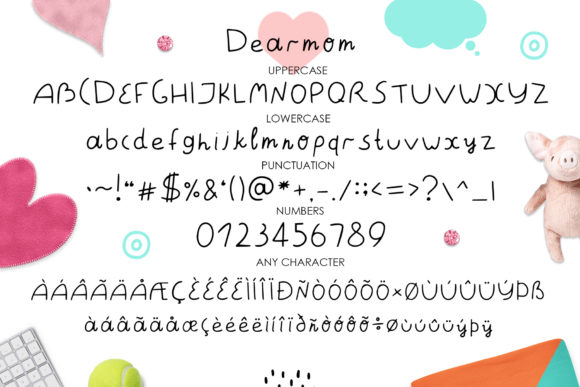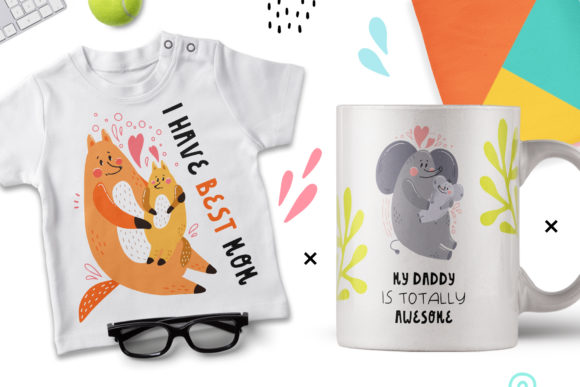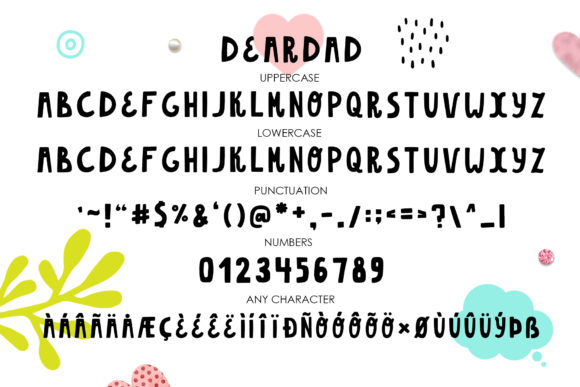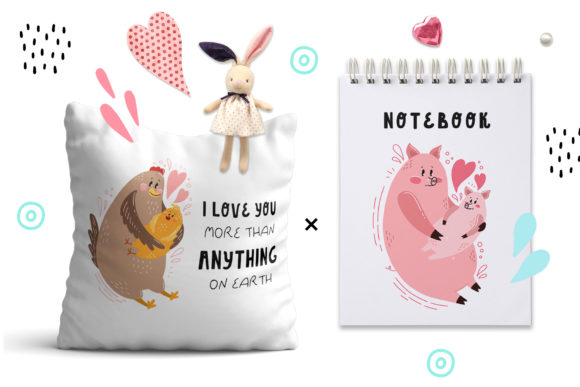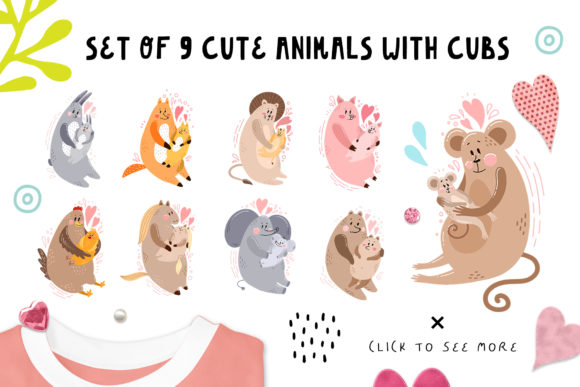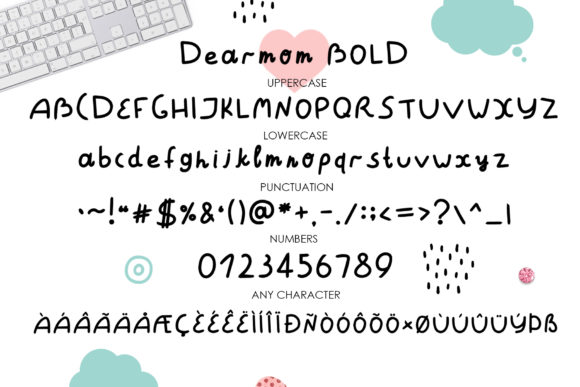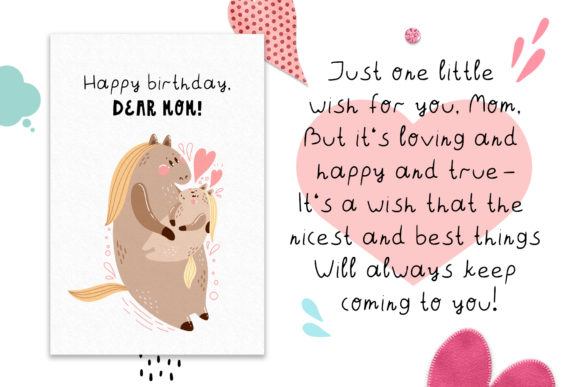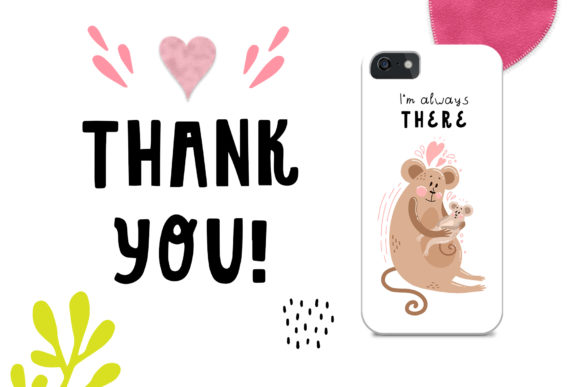
Dearmom and Deardad Font
About Dearmom and Deardad Font
These cute fonts are made by hand and with great love, especially made for your loved ones! In this set there are also surprisingly cute animals with their cubs included! These sweet graphics are suitable for congratulations on mother’s Day and father’s Day! Congratulate your favorite fathers and mothers just like that! They will be happy!
Create your own unique design of cards, posters, wishes, invitations, interior decorations, textiles, fabric, brochures, gift wrapping, badges and more!